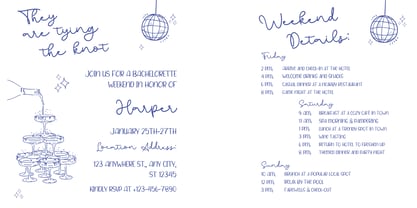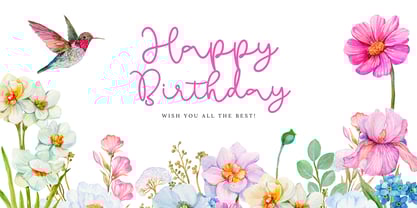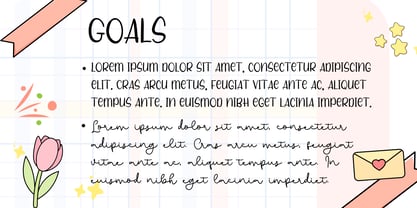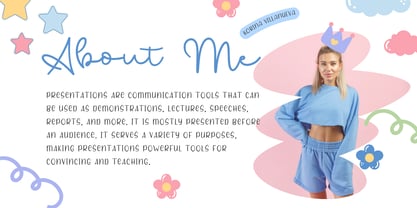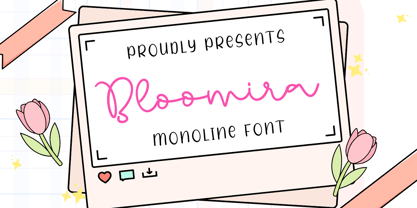
Bloomira
by Beary
The Bloomira Font Family was designed by Dian Haniffan Hadi and published by Beary. Bloomira contains 1 styles. More about this family
Bloomira is a handwritten monoline script font with a natural, flowing stroke that exudes elegance and charm. Its smooth connections and organic feel make it perfect for adding a personal and artistic touch to your designs.
Bloomira is ideal for: logos, wedding invitations, Cricut projects, shirts, greeting cards, Canva designs, wedding signs, branding, farmhouse decor, and more!